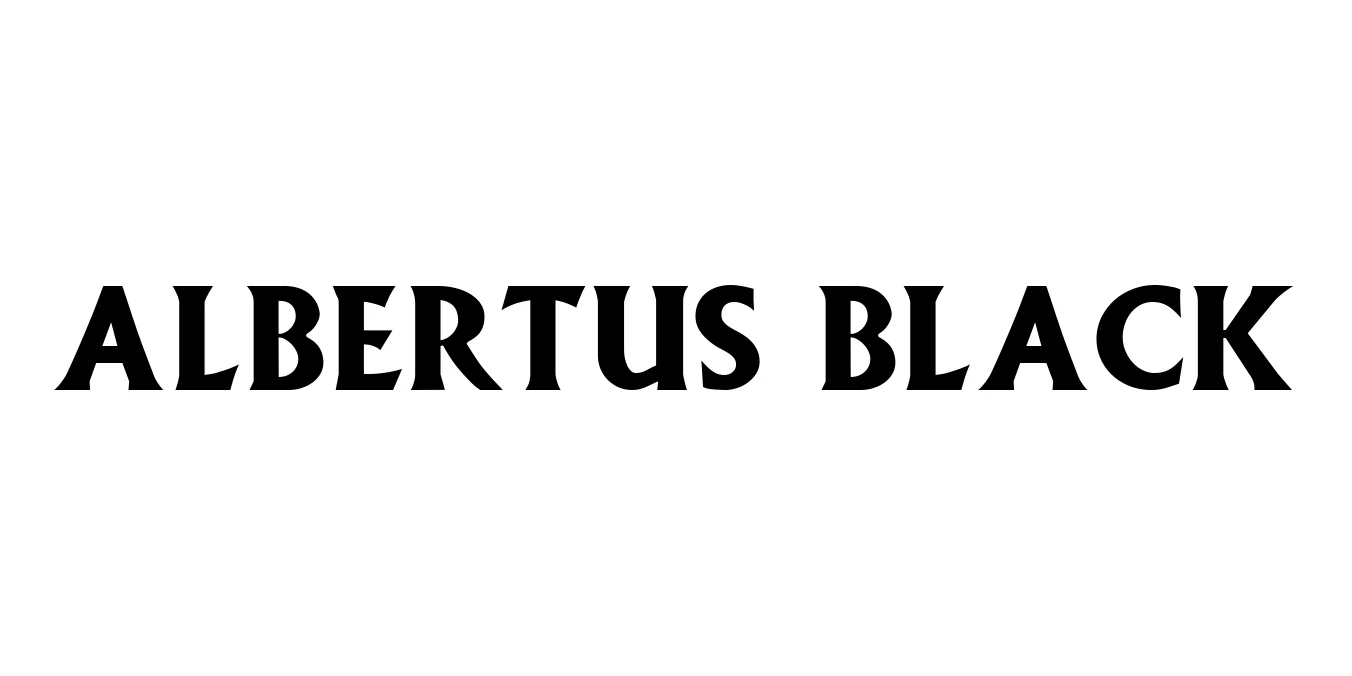
Albertus Black
Designed by Berthold Wolpe
| Category | Glyphic Serif |
| Designer | Berthold Wolpe |
Albertus Black is a heavyweight variant of the iconic Albertus typeface family, meticulously designed by Berthold Wolpe between 1932 and 1940 for the Monotype Corporation. Named after the 13th-century philosopher Albertus Magnus, the font reflects Wolpe’s background as a goldsmith and metalworker. This heritage is evident in its glyphic and incised character, which mimics the appearance of letters carved into stone or metal rather than those drawn with a pen.
The Black weight is particularly celebrated for its monumental and authoritative presence, making it a frequent choice for high-profile display applications. It gained significant cultural recognition through its use in the signage of the City of London and as the primary typeface for the cult television series 'The Prisoner'. Its unique combination of sharp terminals and classical proportions ensures that it remains a timeless choice for designers seeking a balance between artistic flair and legibility.
Albertus Black Best Uses
Its bold weight makes it perfect for high-impact posters and billboard headlines.
Ideal for logos that need to convey strength, history, and craftsmanship.
Excellent for book covers and magazine titles requiring a distinct personality.
Highly effective for architectural lettering and physical wayfinding systems.